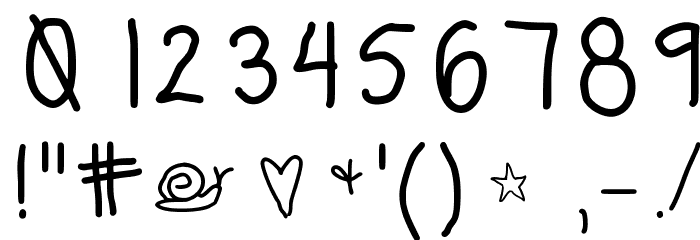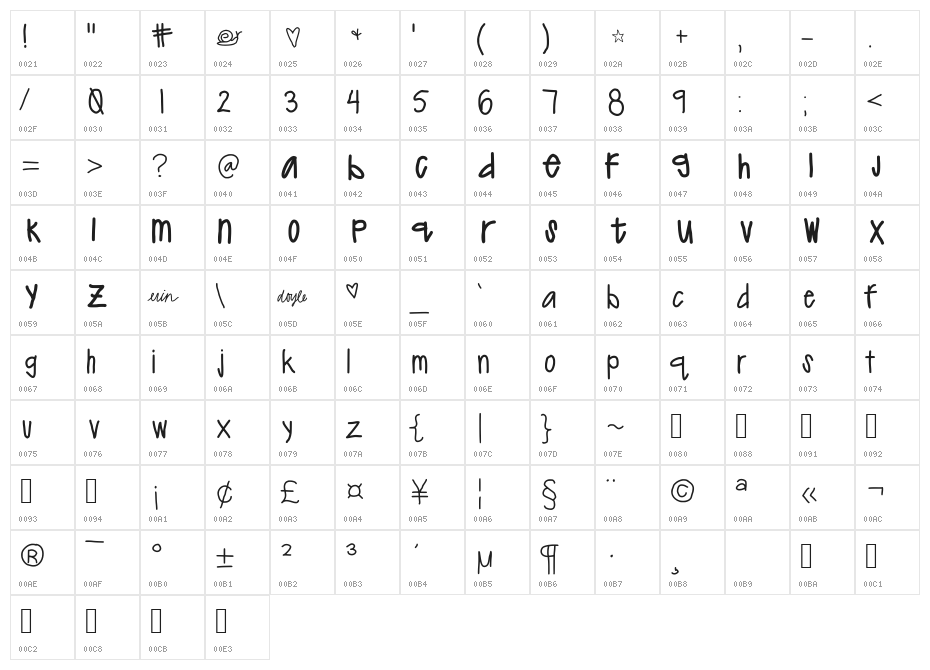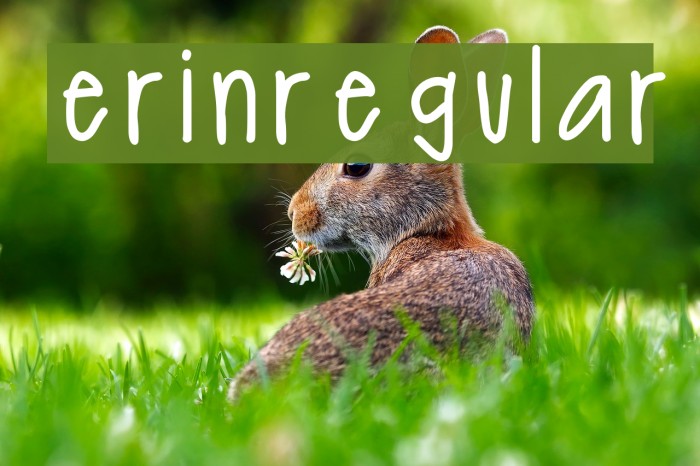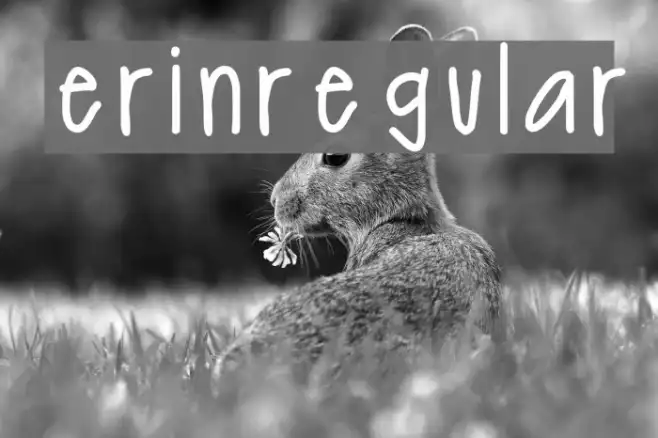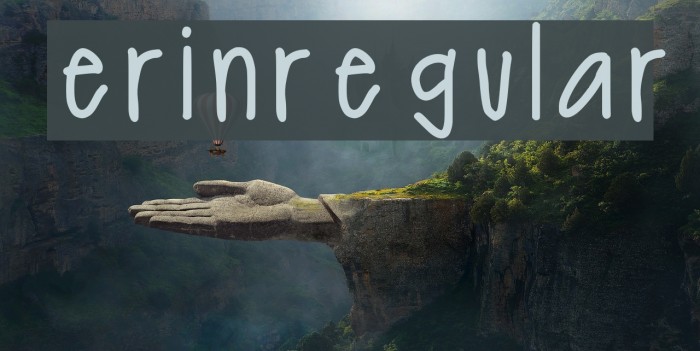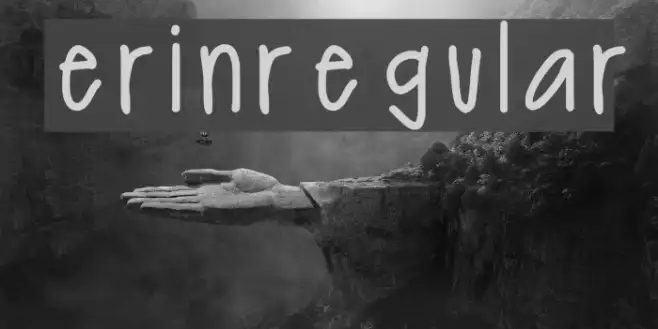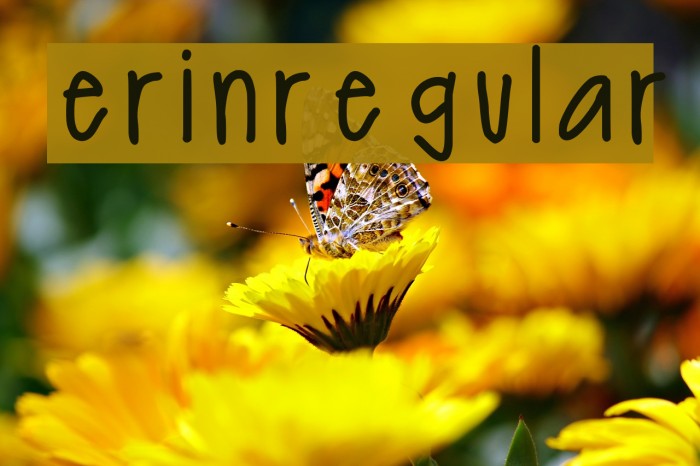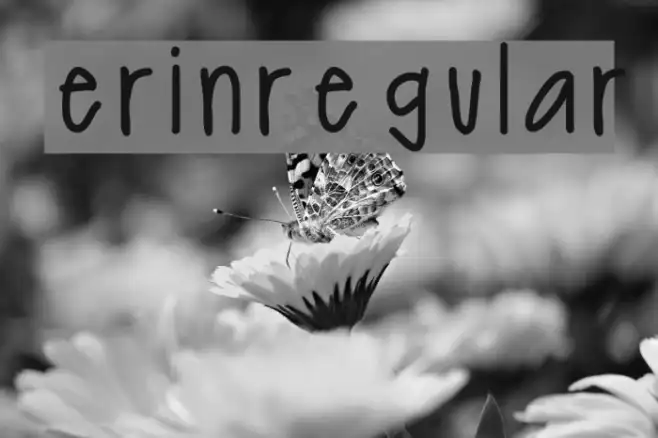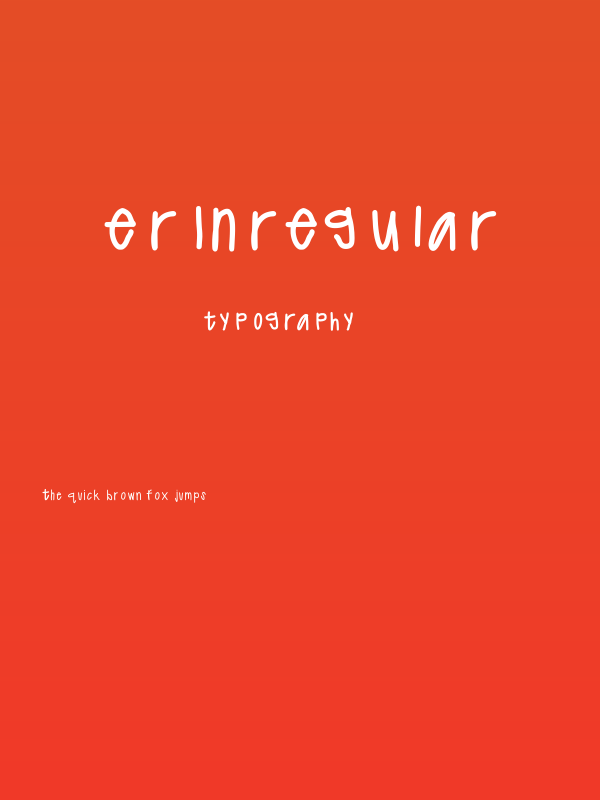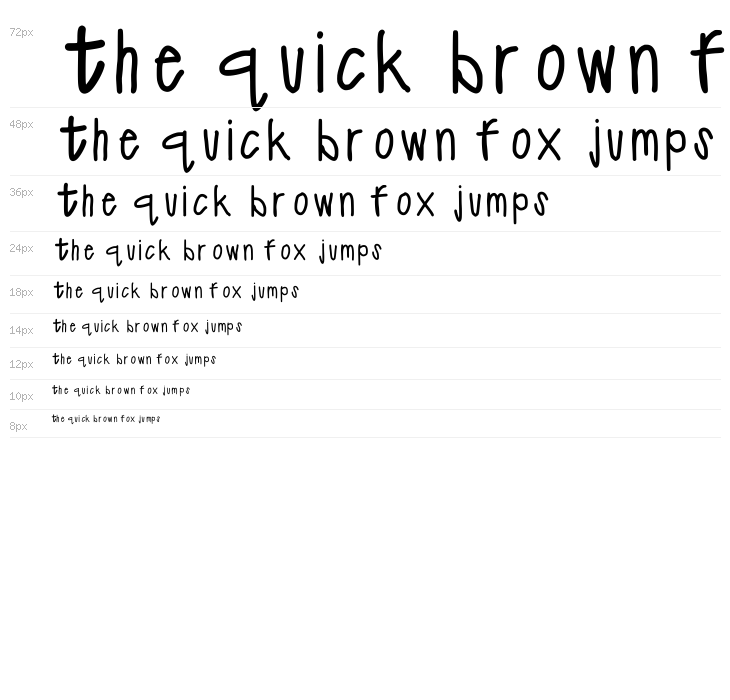
erinregular Font
erinregular Description
This playful and whimsical font features a handwritten style with a casual and informal appearance. The characters are slightly irregular, adding a personal touch that mimics natural handwriting. The strokes are smooth and rounded, with a consistent thickness that gives the font a friendly and approachable feel. The uppercase and lowercase letters maintain a cohesive look, while the numbers and special characters complement the overall style. This font is perfect for projects that require a touch of creativity and individuality.
| Use Case | Headlines, Creative projects, Informal text |
| Proposed Projects | Ideal for greeting cards, children's books, personal blogs, and creative branding. |